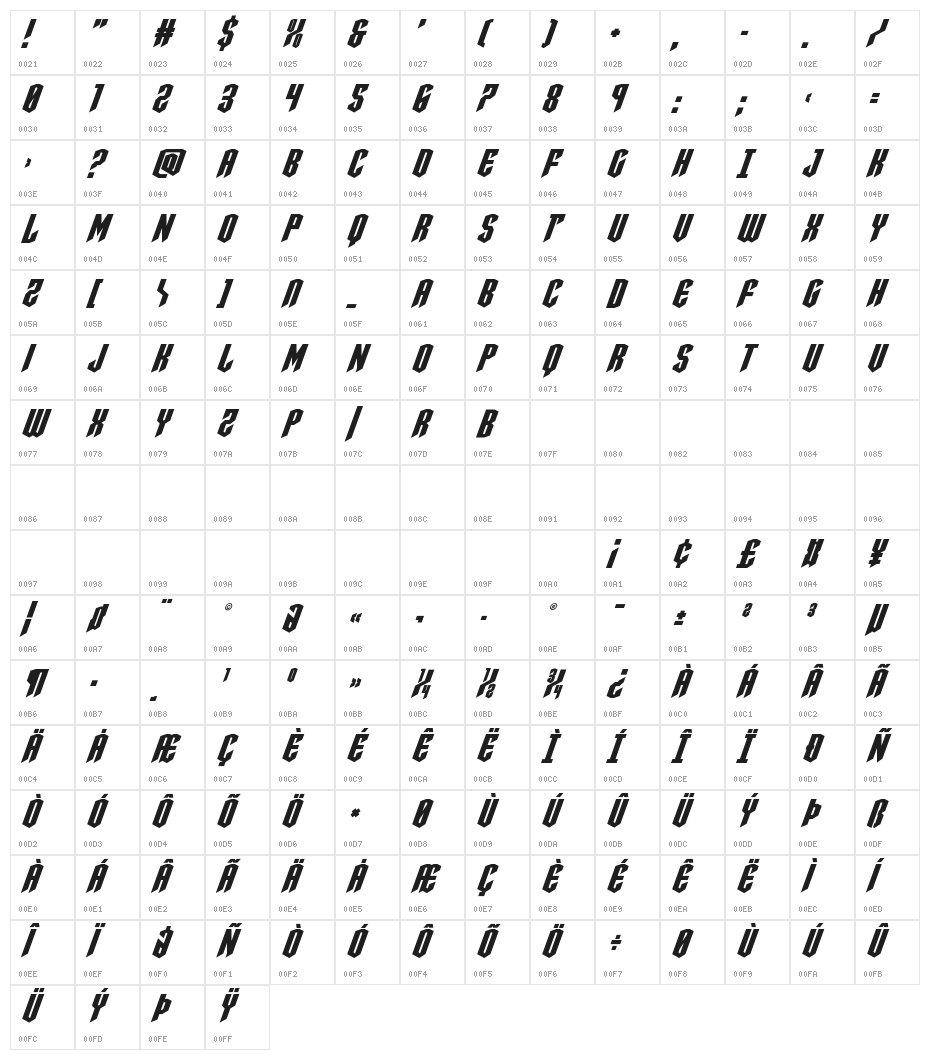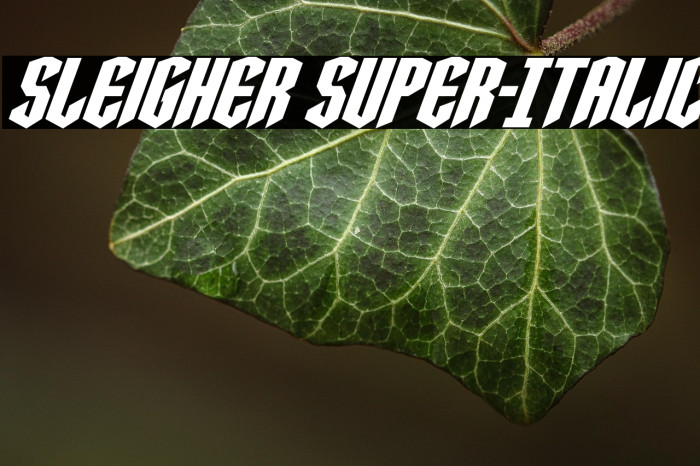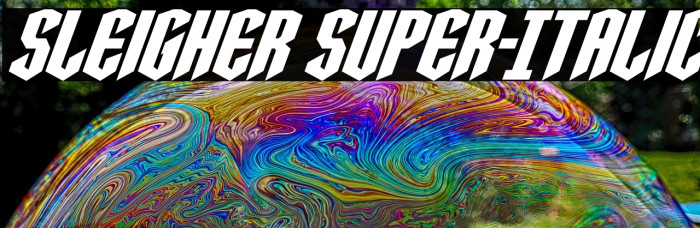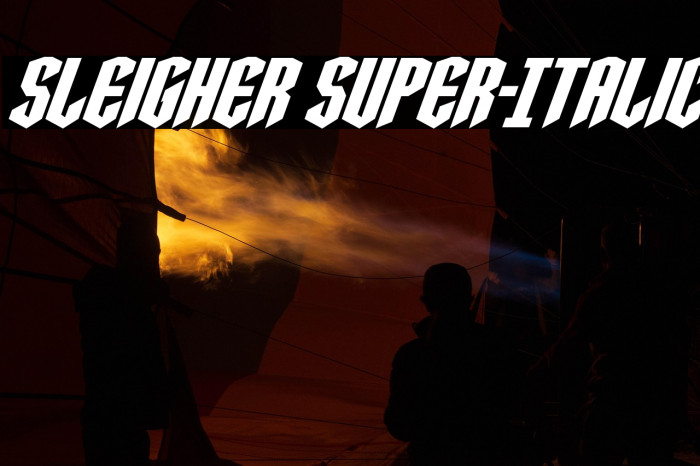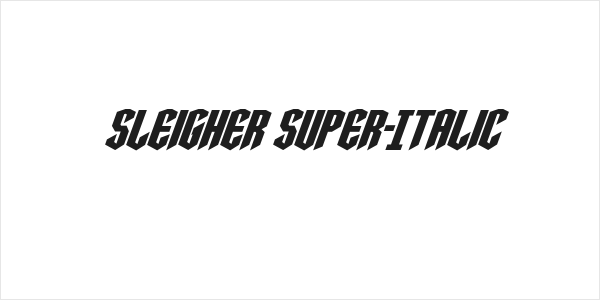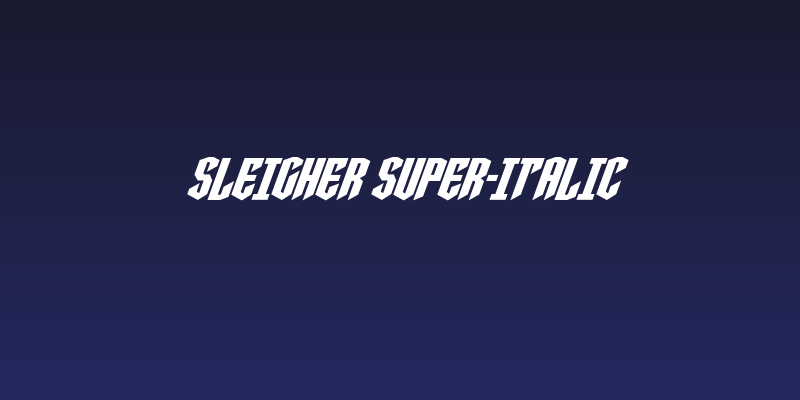
Sleigher Super-Italic Font
Sleigher Super-Italic Description
This font features a bold and dynamic style with sharp, angular edges and a strong italic slant. The characters are designed with a sense of motion and energy, making them ideal for impactful and attention-grabbing designs. The uppercase and lowercase letters maintain a consistent style, with the uppercase being more pronounced. Numbers and special characters follow the same bold and angular theme, ensuring a cohesive look across all text elements. The font's aggressive and modern appearance makes it suitable for projects that require a strong visual presence.
| Proposed Projects | Ideal for sports branding, music album covers, video game titles, and dynamic poster designs. |